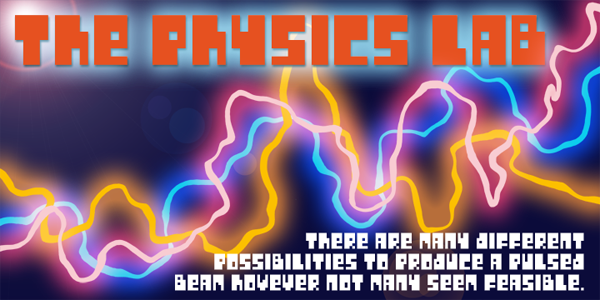
Preview and download The Physics Lab Font. Created by Petyka in Techno Square styles with Free for personal use license.
The Physics Lab is an all caps style techno square font. This font is free for personal use. Commercial use requires free amount donation. |